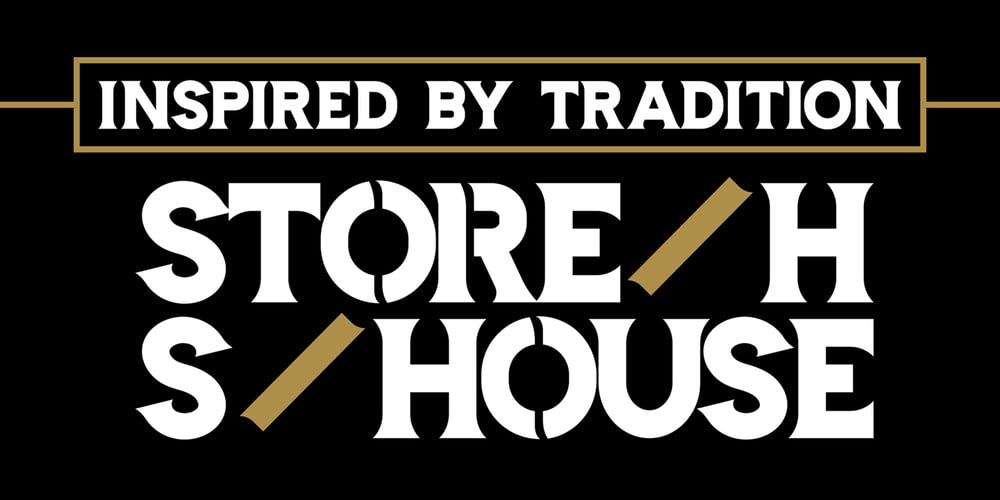
Storehouse
Storehouse font
Storehouse Font Family was designed by Nicolas Massi, Leonard Posavec and published by Creative Toucan. Storehouse contains 7 styles and family package options. Storehouse Font is an old fashioned typeface with a modern touch. Inspired by tradition, hardworking brewers and 1800s it come up with 10 strong, confident and powerful styles, included: Regular, Italic, Thin, Black, Outline, Shadow, Used, Wide, Soft and Stencil. The font looks great when put on signs, shirts or labels of the bottles. Also, it works perfect as font for a branding and commercial uses. What is included: Shapes: 1.Storehouse Shapes EPS – EPS file 2.Storehouse Shapes PDF – PDF file Fonts: Storehouse Regular – OpenType font file – Regular old fashioned typeface with a modern touch. Full set of uppercase letters, international support, punctuation, and a wide variety of extra characters. Storehouse Thin – OpenType font file – Thin version. Full set of uppercase letters, international support, punctuation, and a wide variety of extra characters. Storehouse Wide – OpenType font file – Wide version, big spaces. Full set of uppercase letters, international support, punctuation, and a wide variety of extra characters. Storehouse Black – OpenType font file – Extra, extra bold version. Full set of uppercase letters, international support, punctuation, and a wide variety of extra characters. Storehouse Outline – OpenType font file – Outline version of regular version, amazing in matching with regular version as a back shadow. full set of uppercase letters, international support, punctuation, and a wide variety of extra characters. Storehouse Shadow – OpenType font file – Old fashioned shadow of regular version. Full set of uppercase letters, international support, punctuation, and a wide variety of extra characters. Storehouse Italic – OpenType font file – Regular version with smooth edges. Full set of uppercase letters, international support, punctuation, and a wide variety of extra characters. Storehouse Soft – OpenType font file – full set of uppercase letters, international support, punctuation, and a wide variety of extra characters. Storehouse Stencil – OpenType font file – Stencil font with amazing old fashioned modern touch. Full set of uppercase letters, international support, punctuation, and a wide variety of extra characters. Storehouse Used- OpenType font file – Softer edges, smooth lines. Full set of uppercase letters, international support, punctuation, and a wide variety of extra characters. Multilanguage Support: English, Albanian, Danish, Dutch, Estonian, Croatian, Bosnian, Slovenian, Finnish, French, German, Icelandic, Italian, Norwegian, Portugese, Spanish, Swedish with a lot of other languages; see Full Character List. Note: To access the extra alternate letters, you will need to use the glyphs panel. Many design programs offer this ability, including Adobe Photoshop CC 2015 , Adobe Illustrator, Adobe Indesign. Works with Cricut, Silhouette, PicMonkey, Photoshop, Illustrator and many more applications!